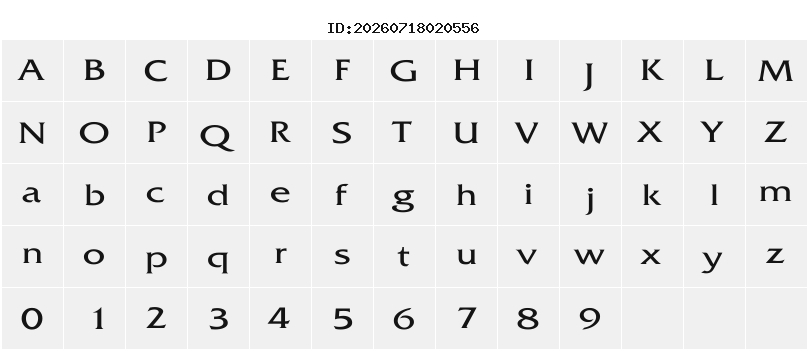
BD Quattra Preview
• Font Name: BD Quattra
• Full Font Name: BD Quattra
About BD Quattra.ttf
BD Quattra.ttf is a modern, elegant sans-serif font designed for ultimate readability and visual harmony. Perfect for branding, headlines, web design, and print materials.